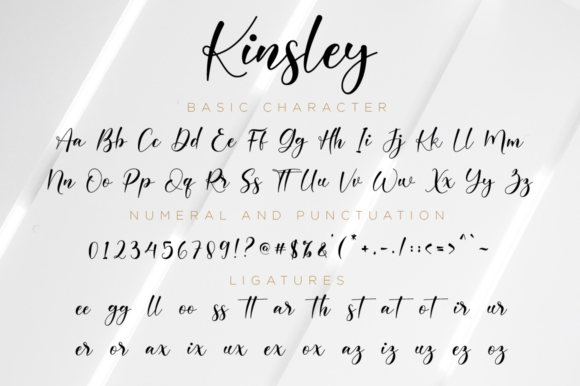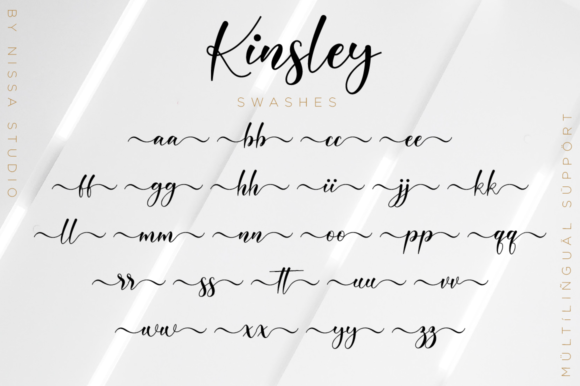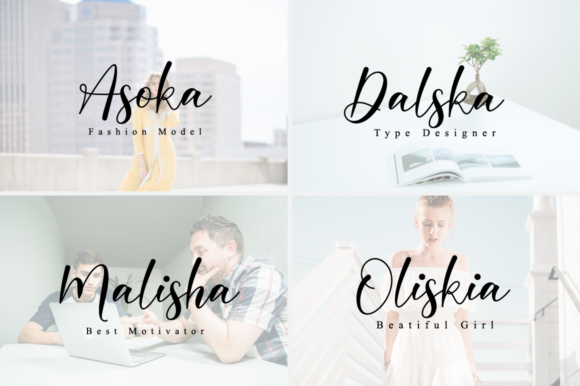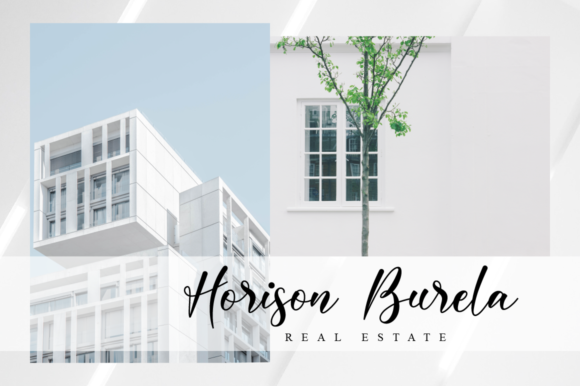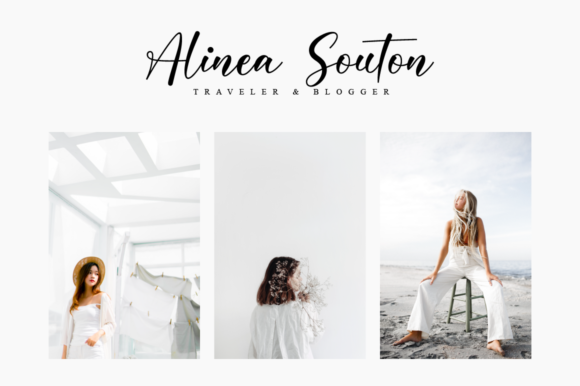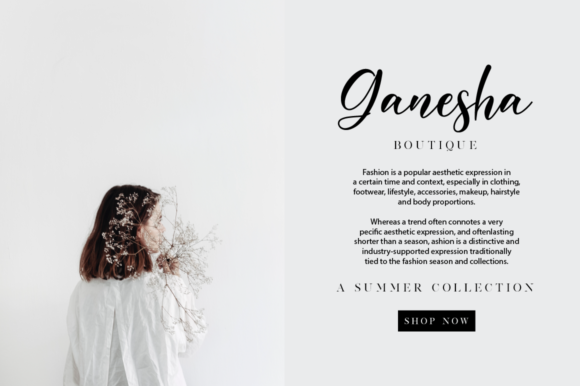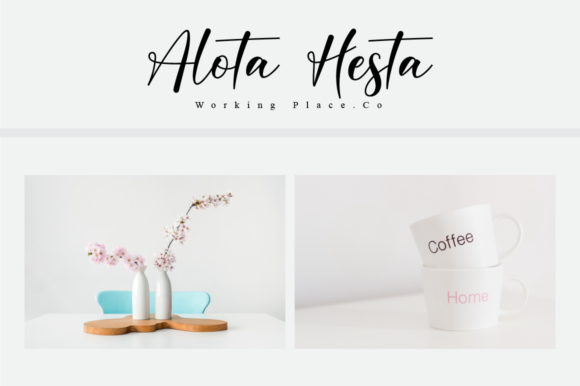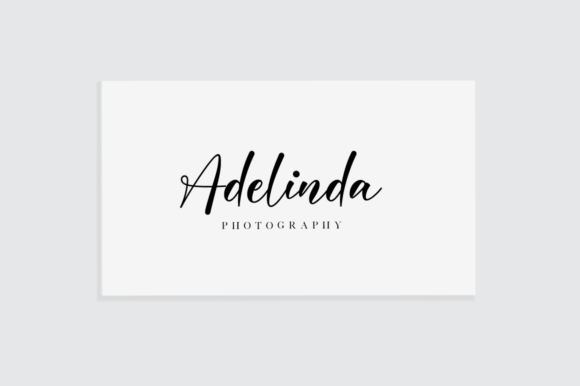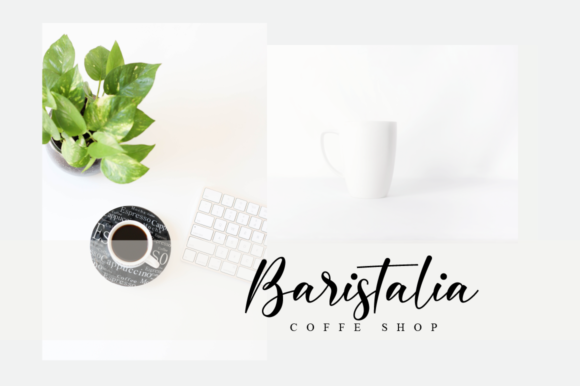
Kinsley Script Font
About Kinsley Script Font
Kinsley Script is a beautifully light script font with a silky smooth feel. It will add plenty of class and character to any design project!